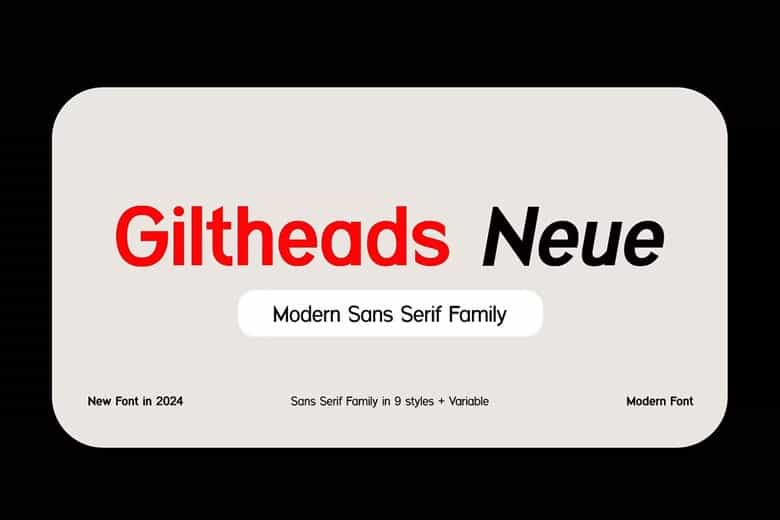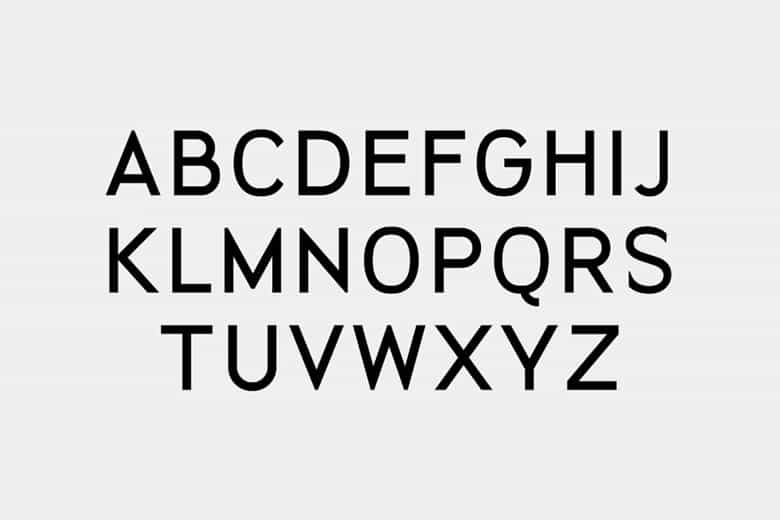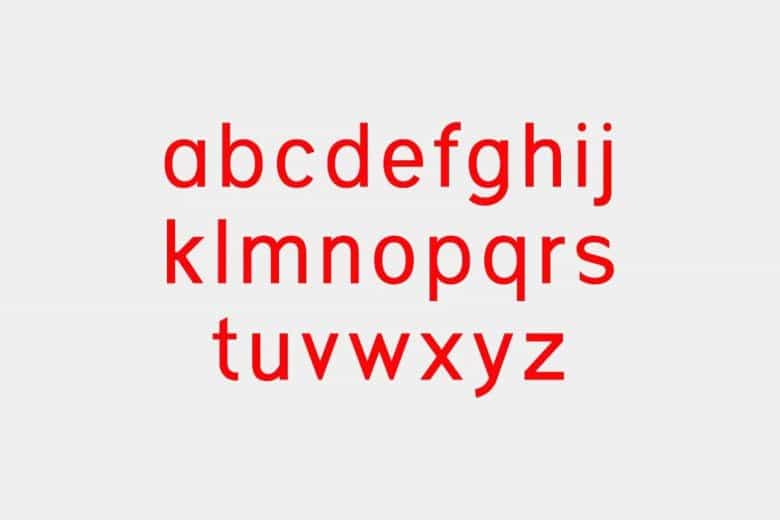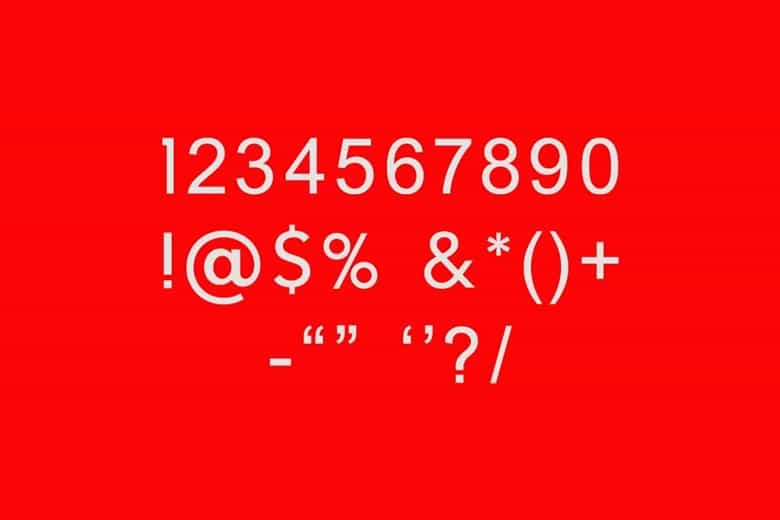
Giltheads Neue is a modern sans serif font family design that has a precise and elegant look and feel to it. This font is ideal for a large number of projects including logos, weddings, quote graphics, magazine or book covers, web headers, branding, and many more. Also, fashion branding or fashion editorial shows both the male and the female characteristics.